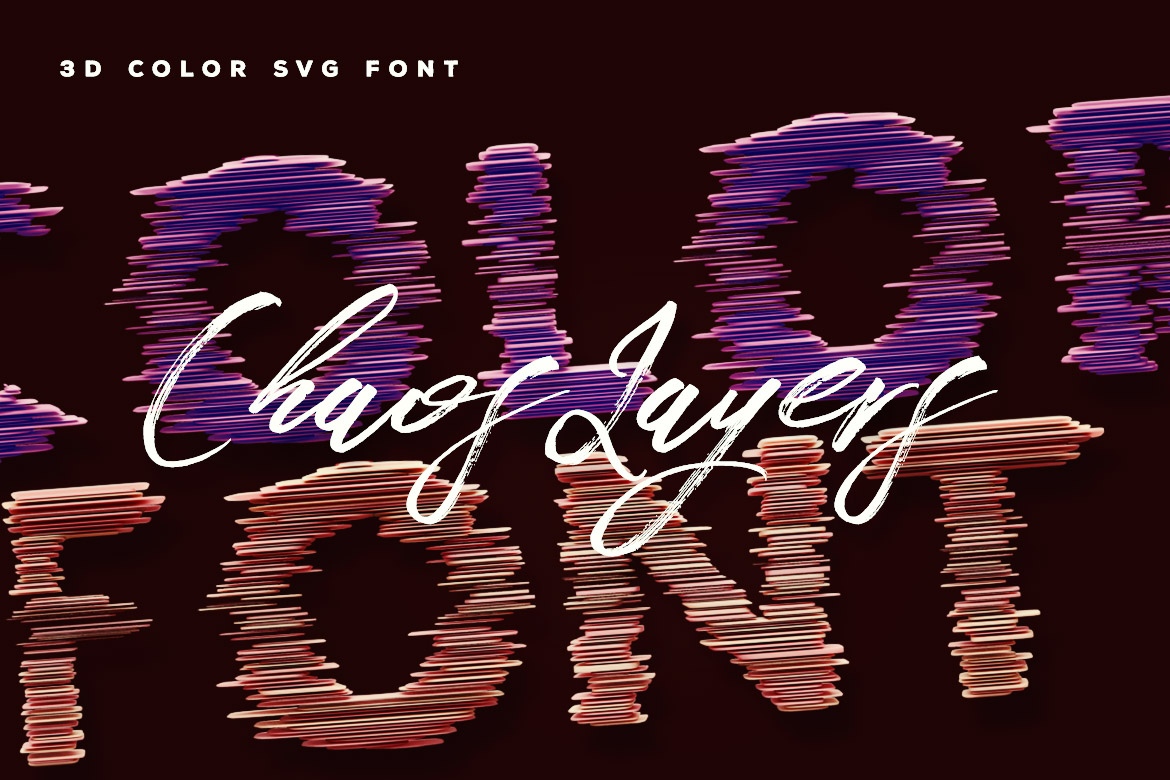
Chaos Layers Color Font
Chaos Layers Color Font is perfect for experimental art installations, avant-garde fashion campaigns, underground music festival graphics, rebellious street art branding, edgy youth marketing, alternative culture events, disruptive tech startups, and radical creative communications.
What makes Chaos Layers Color Font exciting is its rebellious dynamism that embodies creative disruption and artistic revolution with layered complexity and unconventional energy. The font features fragmented letterforms with overlapping dimensions and chaotic character variations that evoke street graffiti, digital glitches, and the explosive creativity of underground artistic movements and disruptive innovation. Its distinctive layered styling and chaotic appeal communicate rebellion, creativity, and artistic disruption, making every message feel charged with revolutionary energy and touched by the explosive power of creative chaos and artistic rebellion.
The Chaos Layers Color Font family includes regular weight with uppercase and lowercase letters, numerals, punctuation marks, and special characters. Premium versions often feature additional layer combinations and chaotic elements that enhance the disruptive, experimental aesthetic perfect for alternative and artistic applications.
The rebellious character of Chaos Layers Color Font makes it particularly valuable for alternative music venues, experimental art galleries, and disruptive creative agencies. Its excellent impact ensures rebellious messaging and artistic communications capture attention while maintaining the distinctive chaotic aesthetic that appeals to audiences seeking authentic alternative experiences and creative disruption.
Underground creative marketers appreciate how Chaos Layers Color Font effortlessly conveys artistic authenticity and rebellious creativity. The font's layered proportions and chaotic details create compelling brand materials that establish connections with audiences who value creative rebellion, artistic experimentation, and the explosive energy of chaotic creativity and underground artistic movements.
The versatile rebellion of this typeface extends to alternative fashion, experimental technology, and radical art education where chaotic authenticity enhances creative credibility and rebellious appeal. Chaos Layers Color Font Free Download provides creative professionals with an essential tool for developing memorable, disruption-driven designs that resonate with audiences who embrace creative chaos, artistic rebellion, and the layered complexity of experimental creativity in their alternative and artistic experiences.